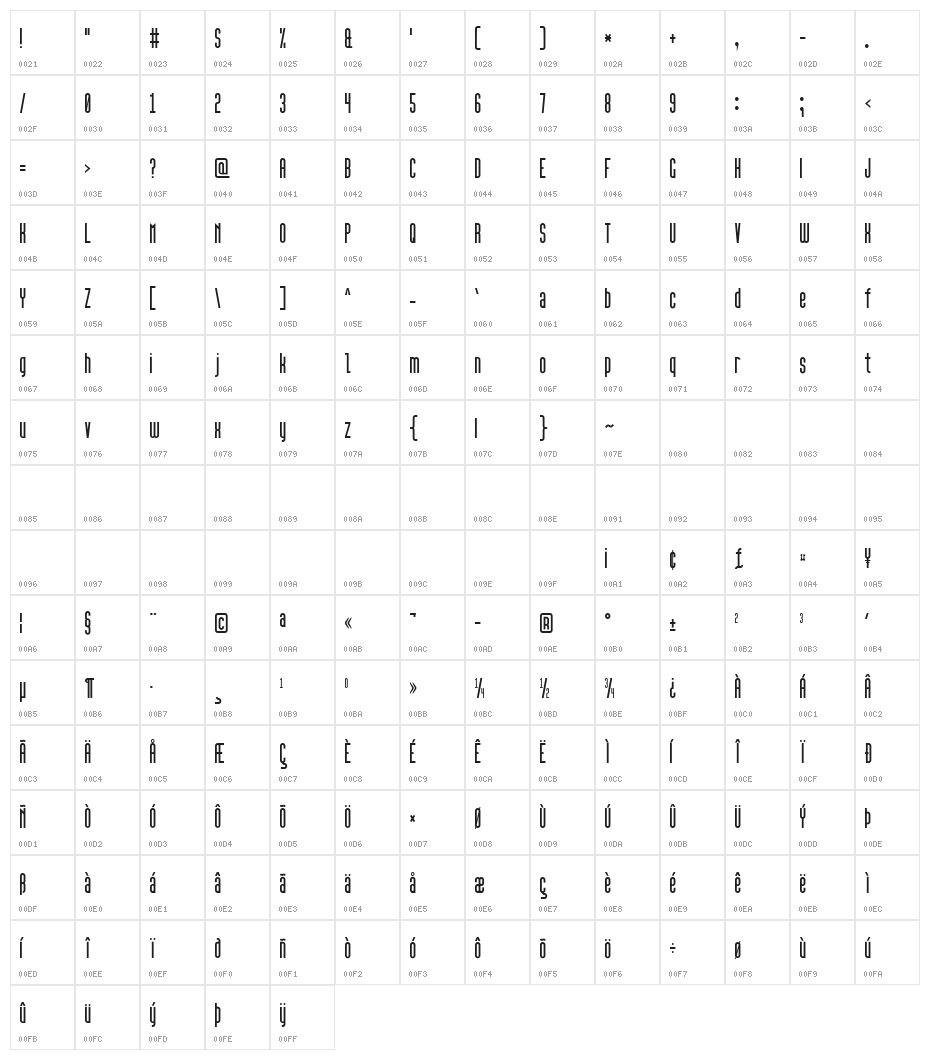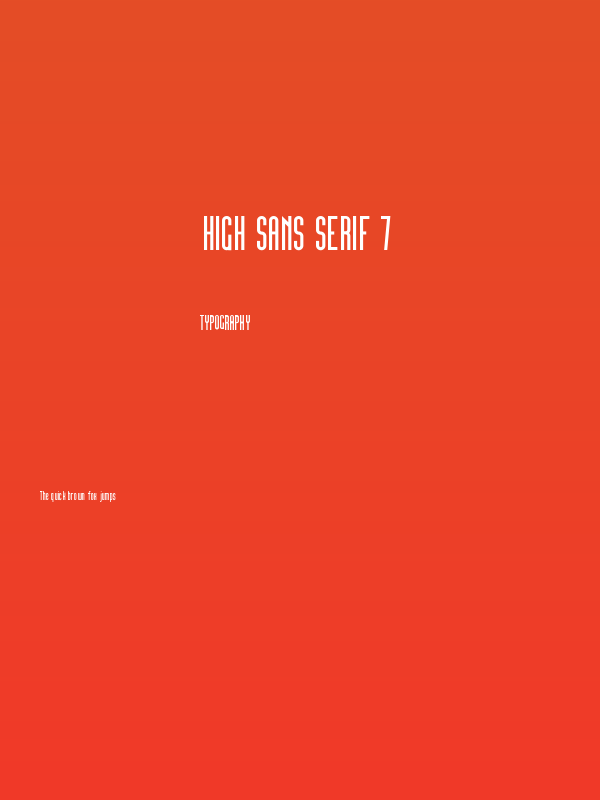
High Sans Serif 7 Font
High Sans Serif 7 Description
This typeface features a tall, narrow design with clean lines and a modern aesthetic. The uppercase and lowercase letters are consistent in height, creating a uniform appearance. The strokes are even and consistent, with minimal contrast, giving it a sleek and contemporary look. The numerals and special characters maintain the same narrow proportions, ensuring cohesive visual harmony across all characters. This font is highly legible and versatile, suitable for various design applications.
| Proposed Projects | Ideal for branding, advertising, and editorial design, as well as for creating eye-catching headlines and posters. |